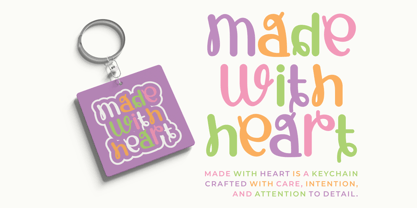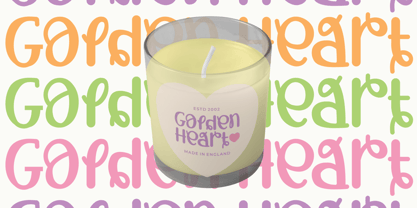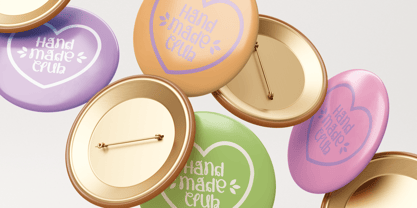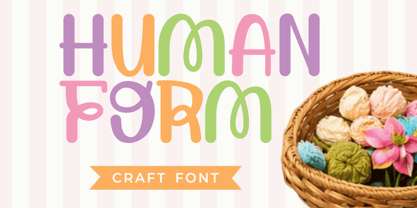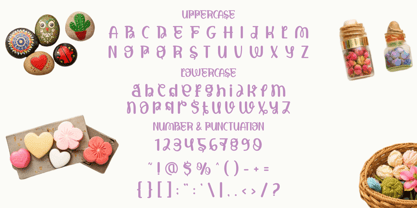
Human Form
Die Schriftfamilie Human Form wurde von Yesie Erma Yunita entworfen und von Shanaf veröffentlicht. Human Form enthält 1 Stile. Mehr über diese Familie
Human Form Craft Font brings a quirky handmade style with soft irregular curves and friendly motion. Each letter has tall proportions, rounded terminals, and playful bends that feel personal and warm. Stroke weight stays medium, keeping text readable while preserving a crafted look. Some characters twist, loop, or lean slightly, adding charm and movement. This display font feels fun, artistic, casual, and modern with a hand-drawn spirit. Human Form Craft Font suits makers who want branding that feels human and inviting. It works well for handmade shops, candle brands, gift stores, bakery labels, toy packaging, stationery products, beauty crafts, and small creative businesses. Use it when your logo needs personality, warmth, and memorable character.
The font performs strongly in logos, product packaging, stickers, greeting cards, craft tags, posters, quotes, social media titles, and boutique signage. Uppercase letters give playful impact, while lowercase forms feel softer and more intimate. Its narrow vertical rhythm helps words stack neatly in compact layouts. Rounded shapes create a gentle tone without losing presence. This style fits themes such as handmade markets, DIY products, kids brands, wedding favors, seasonal gifts, artisan soap labels, home décor items, and cheerful promotions. It also works for magazine covers, book titles, invitation cards, menu headers, and event branding. Every composition feels approachable, creative, and full of handmade energy.